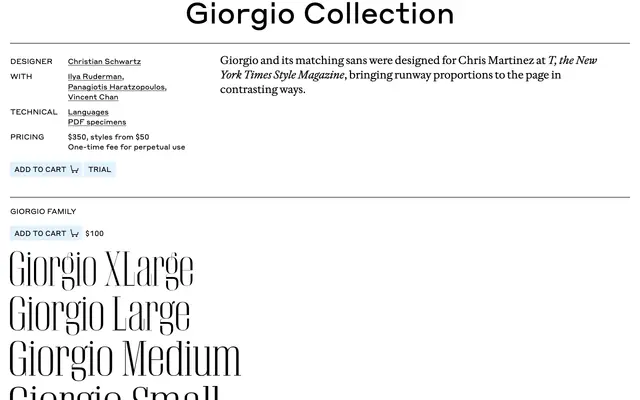
Giorgio
Commercial Type · Christian Schwartz · 2010
Christian Schwartz's slender fashion display family for T Magazine, paired with a matching Giorgio Sans for contrast.
A high-contrast fashion serif by Christian Schwartz designed for Chris Martinez at T, the New York Times Style Magazine, with its sibling Giorgio Sans bringing the same runway proportions in stripped-back form. Multiple optical sizes from Small through XLarge let the face hold both editorial body and full-bleed display, and the wide weight range spans Thin to Black with italics throughout. Strong on covers, fashion features and luxury identities that want elongated proportions without losing personality.
Commercial Type frame Giorgio and Giorgio Sans as a paired serif and sans system drawn for T Magazine, bringing runway proportions to the page in contrasting ways.